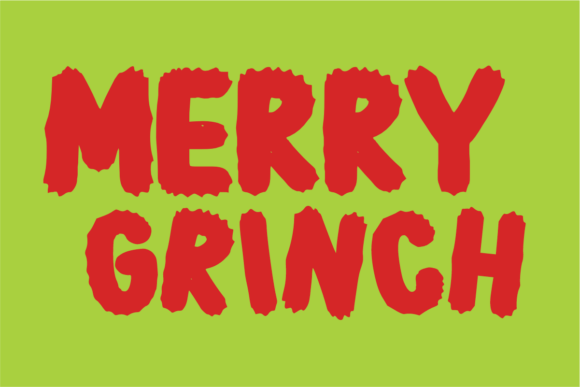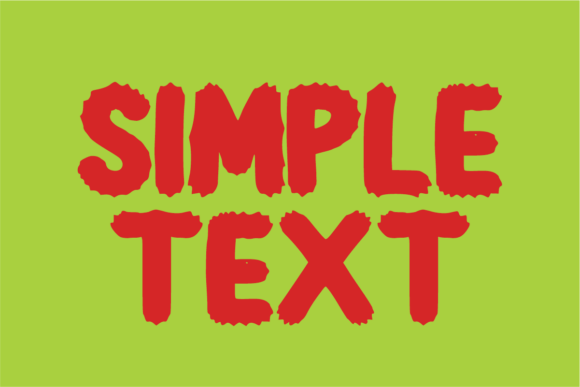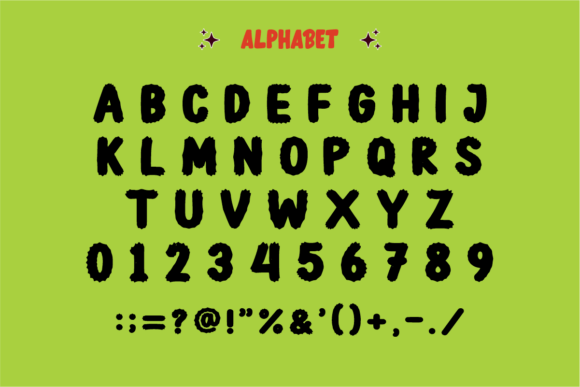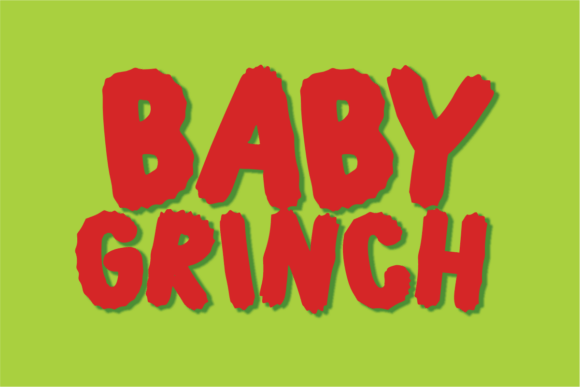
Introduction to Baby Grinch Font
😈 Baby Grinch: Quirky Cartoon Baby Grinch is a quirky, hand-drawn cartoon font that brings an instant sense of mischievous fun and playful distortion to your design.
The bumpy, uneven edges and slightly wobbly base of the letters give the glyphs an animated, handmade quality that is both endearing and rebellious This font is fantastic for capturing a specific, slightly messy, and whimsically grumpy personality .
Key Features of Baby Grinch Font
Why Choose Baby Grinch Font?